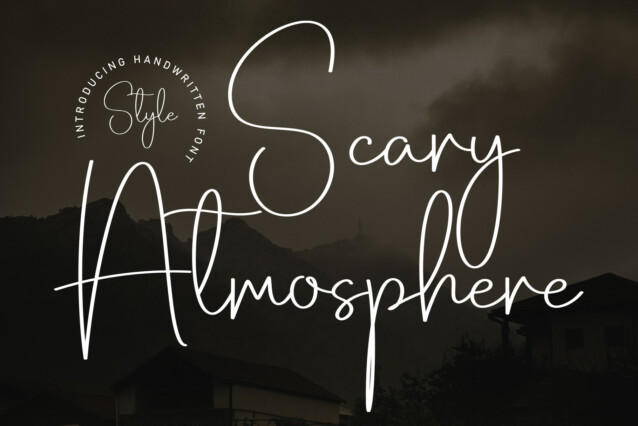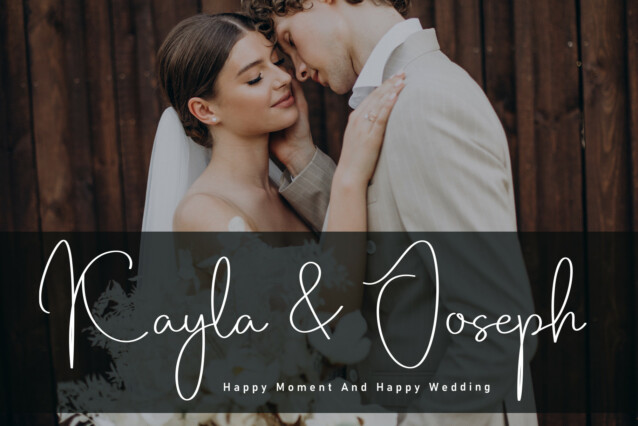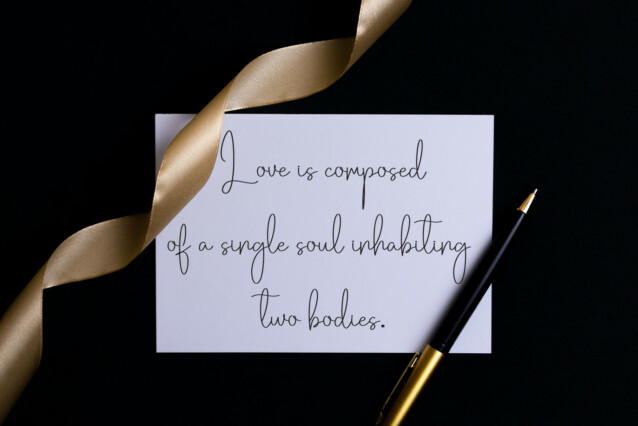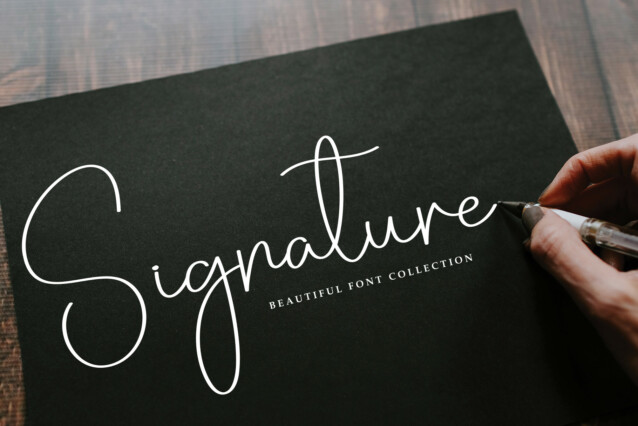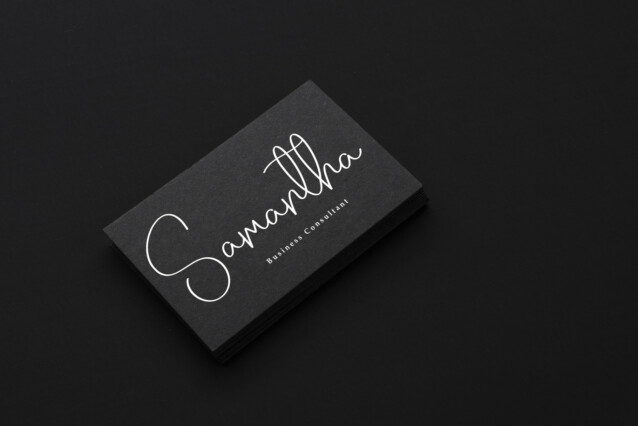
Scary Atmosphere Script Font
Scary Atmosphere Script Font is an exquisite handwritten font, masterfully designed to become a true favorite. It maintains its classy calligraphic influences while feeling contemporary and fresh. Fall in love with it and bring your projects to the highest levels!